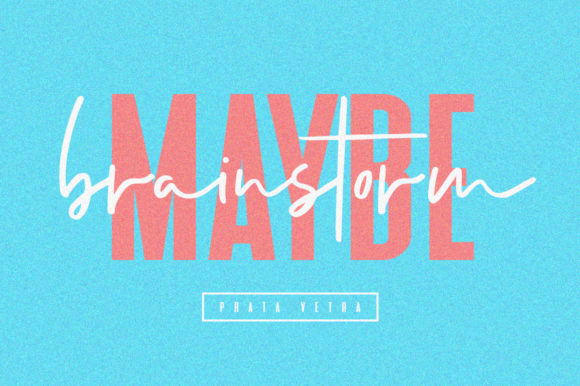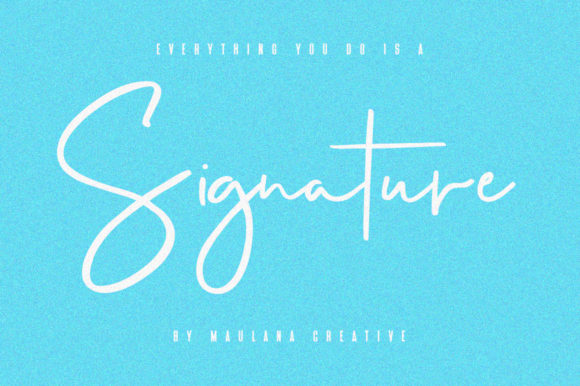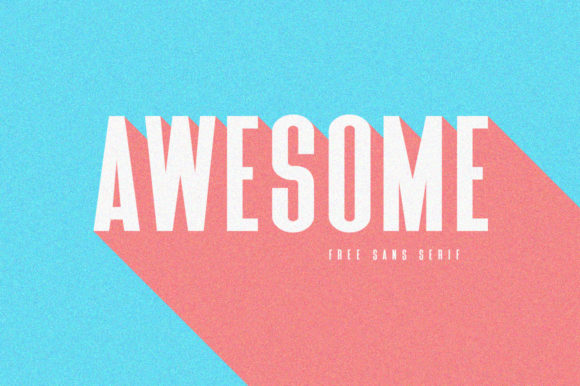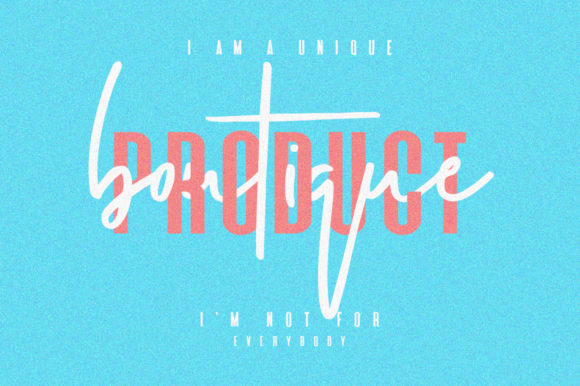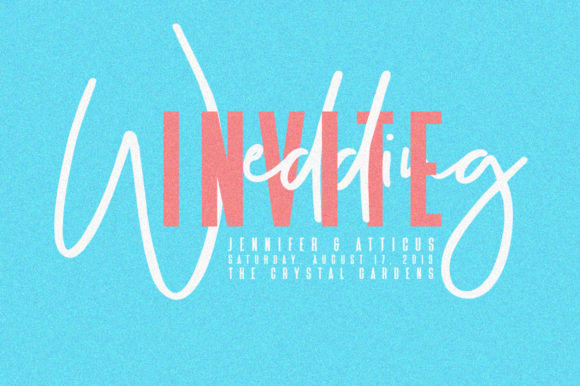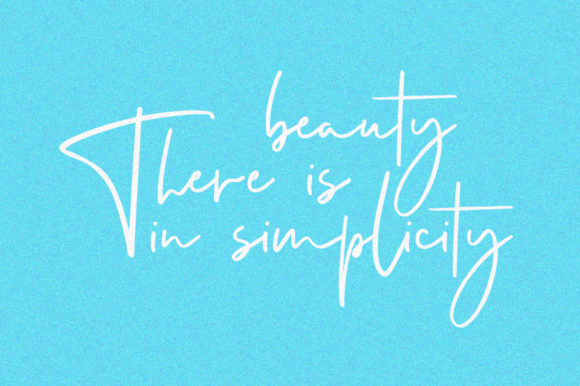
Nyquist Duo Font
Nyquist is an incredibly authentic and wonderful font duo with a light and summery feel. It will add a cool vibe to any design project!